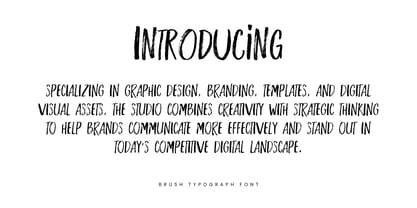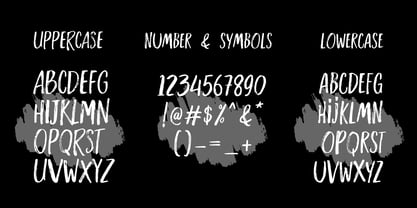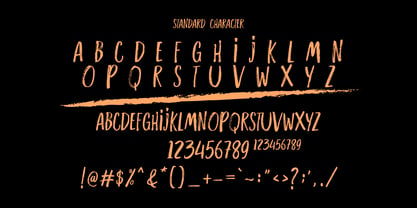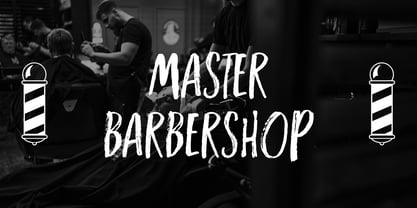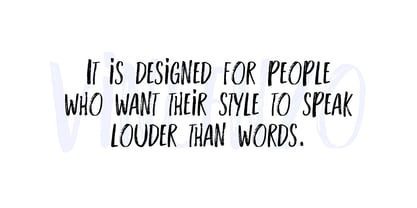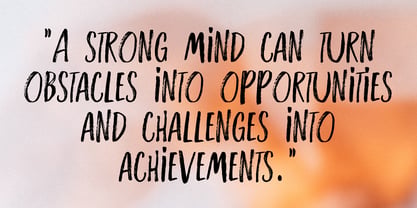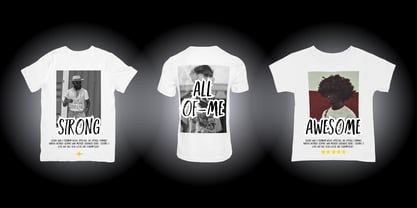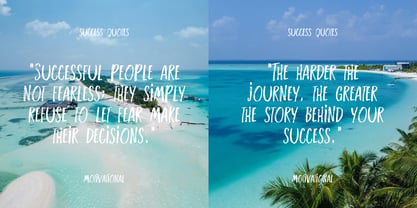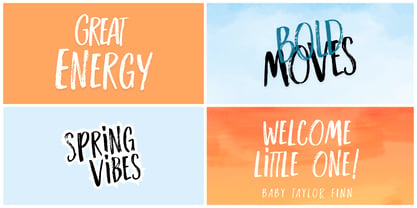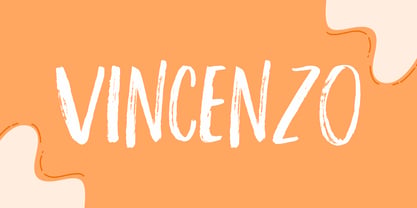
Sign of Power
by Gian Studio
The Sign of Power Font Family was designed by Yusliana M Isa and published by Gian Studio. Sign of Power contains 1 styles. More about this family
Sign of Power a classic/script style font or a font with brush stroke characteristics. In the world of typography, this font has a fluid, handwritten feel. It is an elegant, classy, ? and refined script font.
Characteristics: It has clean, thin, and smooth flowing strokes. aesthetic, and premium feel.
Uses: Perfect for wedding invitation designs, fashion branding logos, aesthetic quotes, greeting cards, and even digital creative projects.
Uses: Often used for headlines, vintage posters, classic product logos, or retro-elegant designs.
Designers: Yusliana M Isa
Foundry: Gian Studio